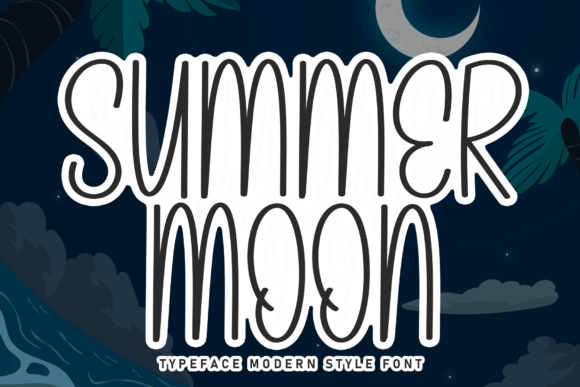
Step into the world of Summer Moon, a captivating handwritten display font that exudes sweetness and friendliness in every letterform. With its charming and playful personality, Summer Moon is a perfect companion for adding a touch of whimsy and fun to your design projects.
Unleash your creativity and let Summer Moon work its magic on wedding invitations, greeting cards, posters, social media graphics, and more. Its playful nature brings a sense of joy and warmth to any design, making it the ideal choice for projects that aim to evoke happiness and positivity.
Whether you're a seasoned designer or just starting out, Summer Moon is easy to use and versatile, ensuring a seamless experience for users of all skill levels. Its intuitive design and smooth flow make it the perfect choice for quick and efficient design work.
But what truly sets Summer Moon apart is its ability to connect with your audience on an emotional level. Its charming script style evokes a sense of nostalgia and familiarity, creating a bond between your design and the viewer. This emotional connection is crucial for creating designs that resonate with your audience and leave a lasting impression.
So let Summer Moon be your font of choice for projects that demand a fun, friendly, and emotionally engaging touch. Its delightful curves and joyful personality will breathe life into your designs and leave your audience captivated by your creativity.